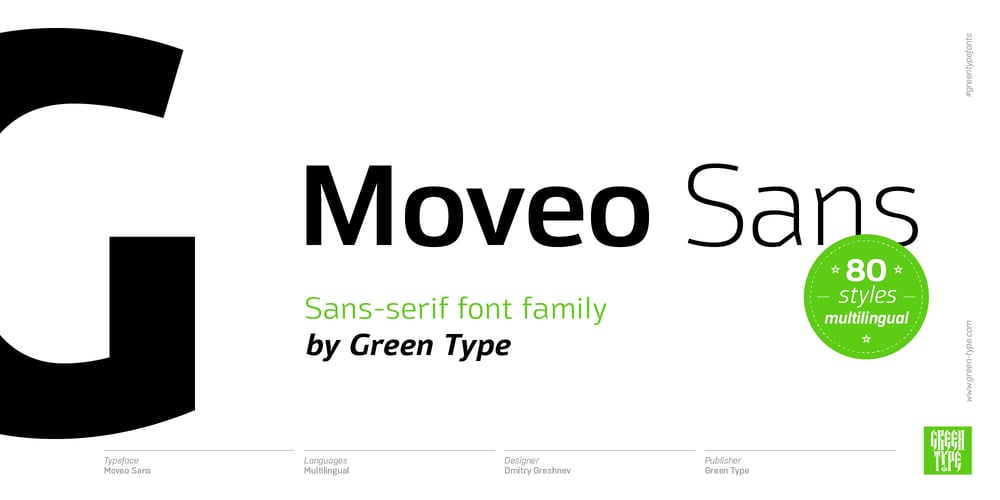
Moveo Sans
Moveo Sans font
Moveo Sans Font Family was designed by Dmitry Greshnev and published by Green Type. Moveo Sans contains 80 styles and family package options. The Moveo Sans font family was designed by Dmitry Greshnev and published by Green Type.This is a geometric sans serif font. Streetline contains 80 styles. Has a wide selection of styles in width and weight.